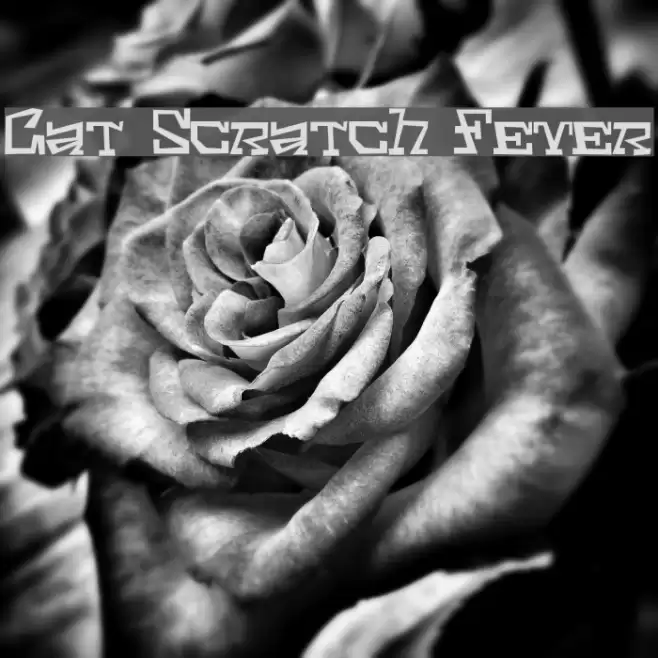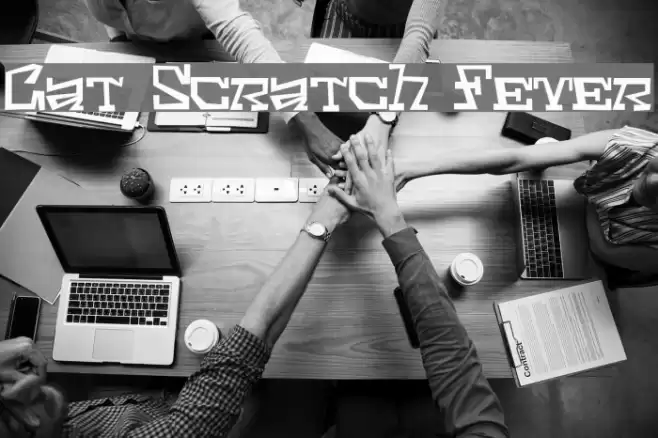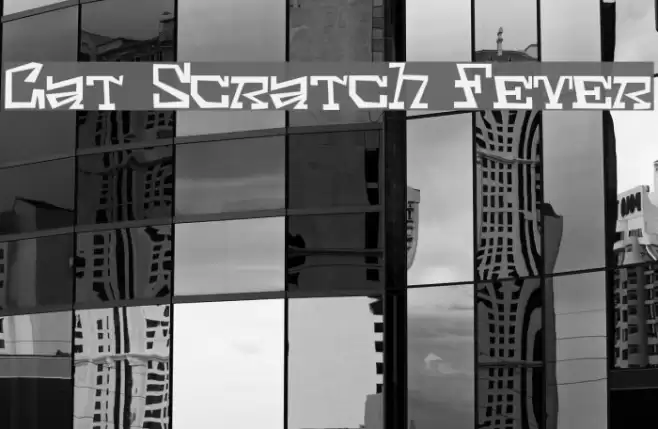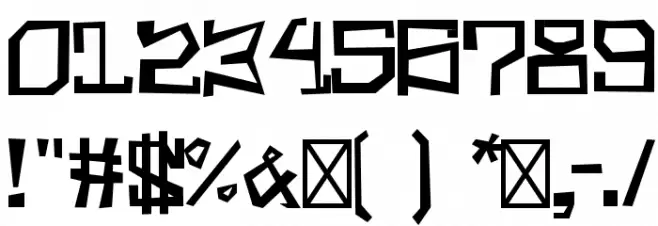
Cat Scratch Fever Font
Cat Scratch Fever Description
This font features a bold, angular design with a distinct, edgy appearance. The characters are constructed with sharp, jagged lines that give it a dynamic and aggressive feel. The uppercase and lowercase letters maintain a consistent style, with exaggerated angles and a slightly condensed form. Numbers and special characters follow the same design principles, ensuring a cohesive look across all elements. The font's unique style makes it stand out, ideal for projects that require a strong visual impact.
A bold, angular font with sharp, jagged lines and a dynamic, edgy appearance from Uncategorized fonts.
- Proposed Projects: Perfect for music album covers, skateboarding brands, graffiti art, and edgy poster designs.
- Character Spacing: Tight
- Overall Style: Modern, Edgy